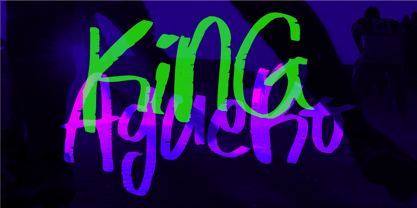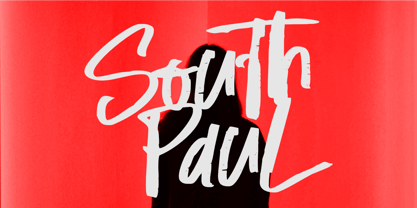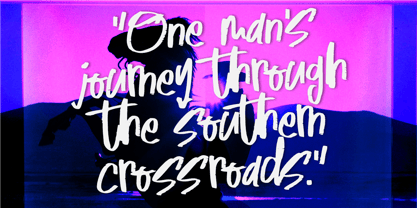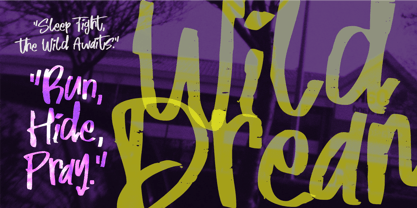
South Paul
by Epiclinez
The South Paul Font Family was designed by Aldy Sidik and published by Epiclinez. South Paul contains 1 styles. More about this family
South Paul is a distinctive, hand-drawn brush script font that captures the essence of authentic brushwork. Its design features bold, sweeping strokes that give it a dynamic and lively appearance, perfect for adding a personal, artistic touch to any project. It's organic curves and dynamic lines are ideal for creative projects like logos, movie titles, posters, and social media graphics. South Paul Brush stands out with its unique character, blending modern aesthetics with an artistic flair.
South Paul Brush Font features :
Designers: Aldy Sidik
Foundry: Epiclinez